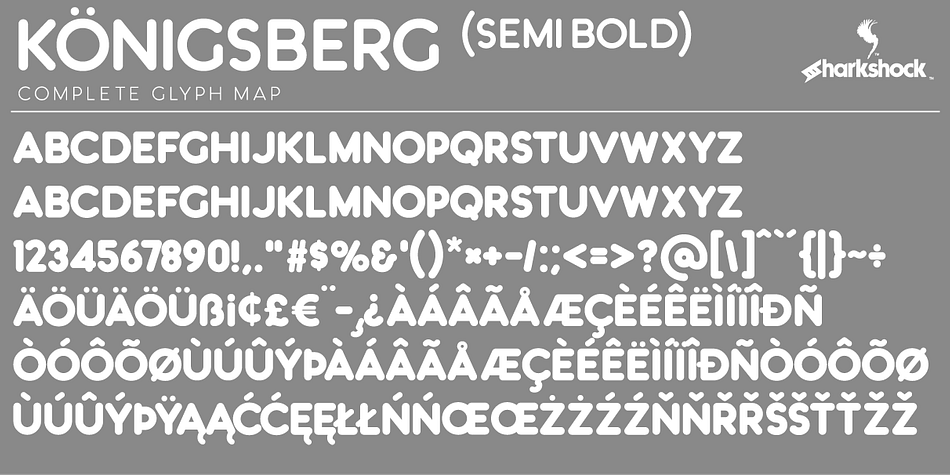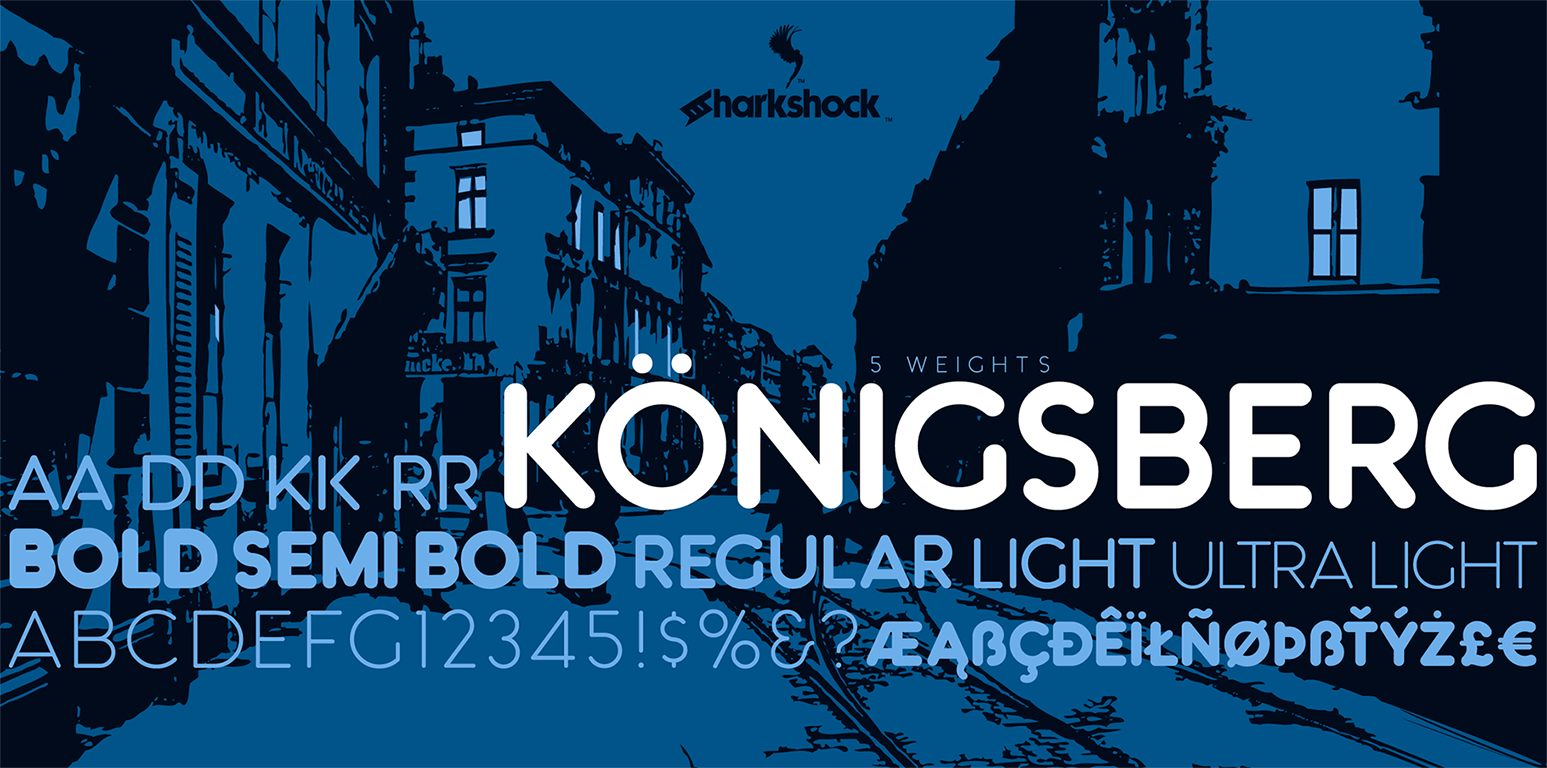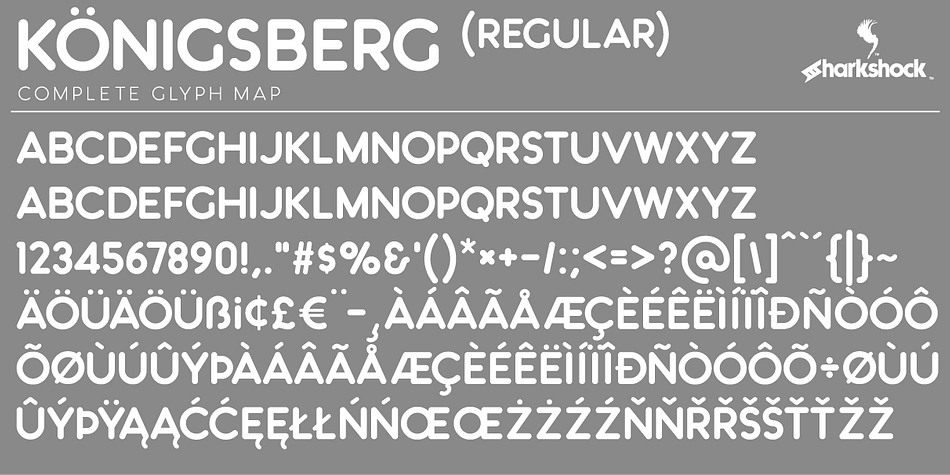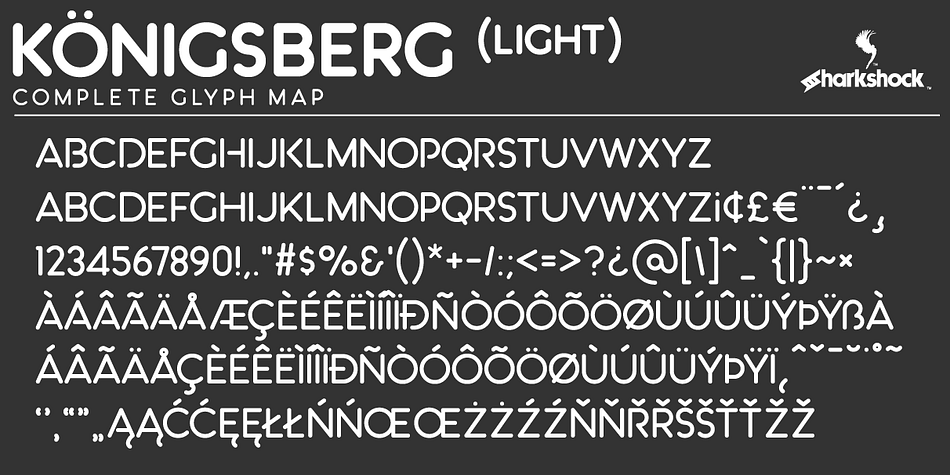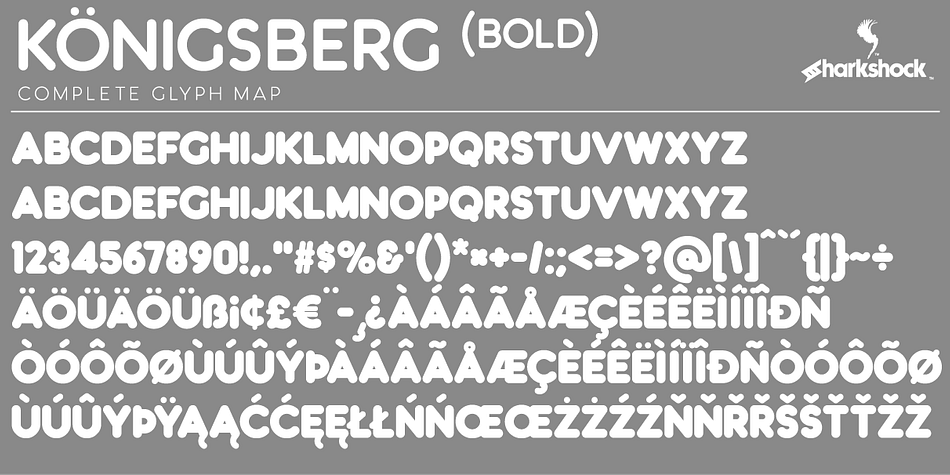
Designed by Dennis Ludlow, Königsberg is a display sans font family. This typeface has five styles and was published by Sharkshock.
Königsberg is a fun and clean display font with 5 different weights for many different uses. Its softened style captures the feel of classic doughnut shops and children’s books of the 70’s. This rounded sans serif features matching uppercase and lowercase characters with the exception of Light and Ultra Light. Basic Latin, extended Latin, diacritics, punctuation, and kerning are available. Use the Bold version for a kid friendly poster or Ultra Light for an elegant logo.
Foundry | Sharkshock |
Designer | Dennis Ludlow |